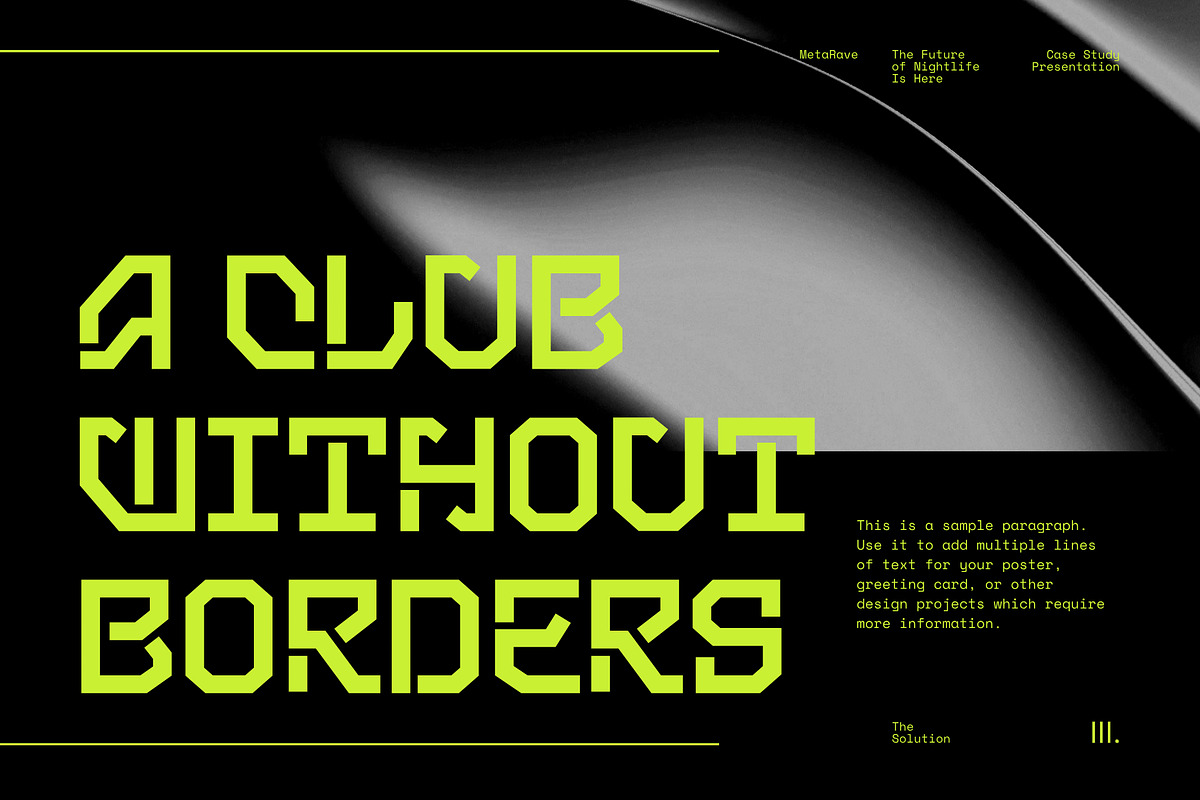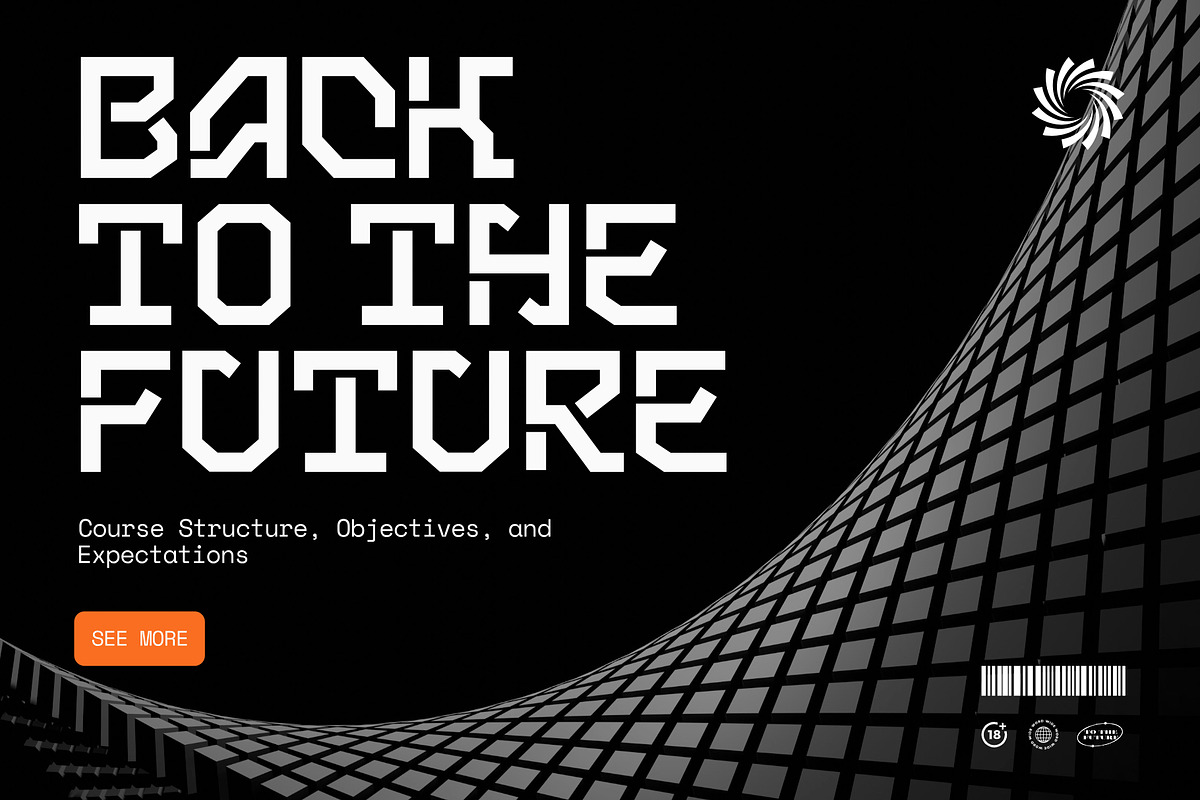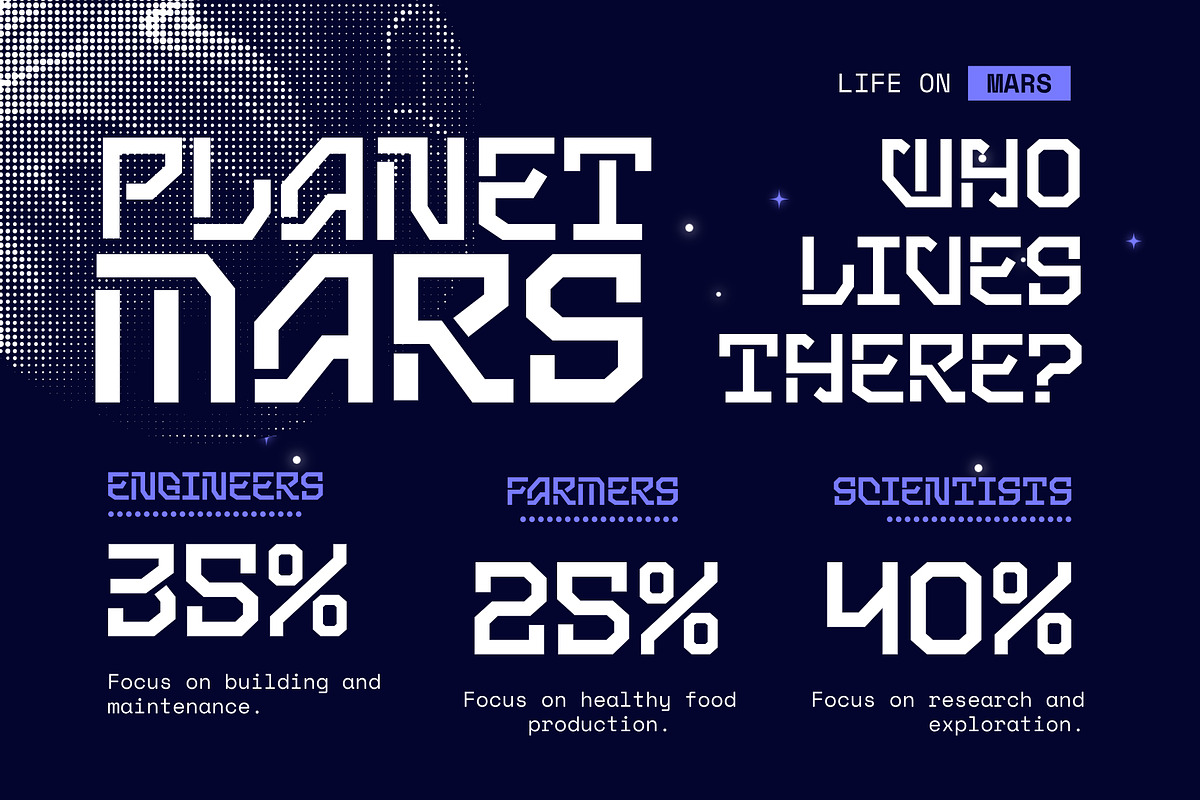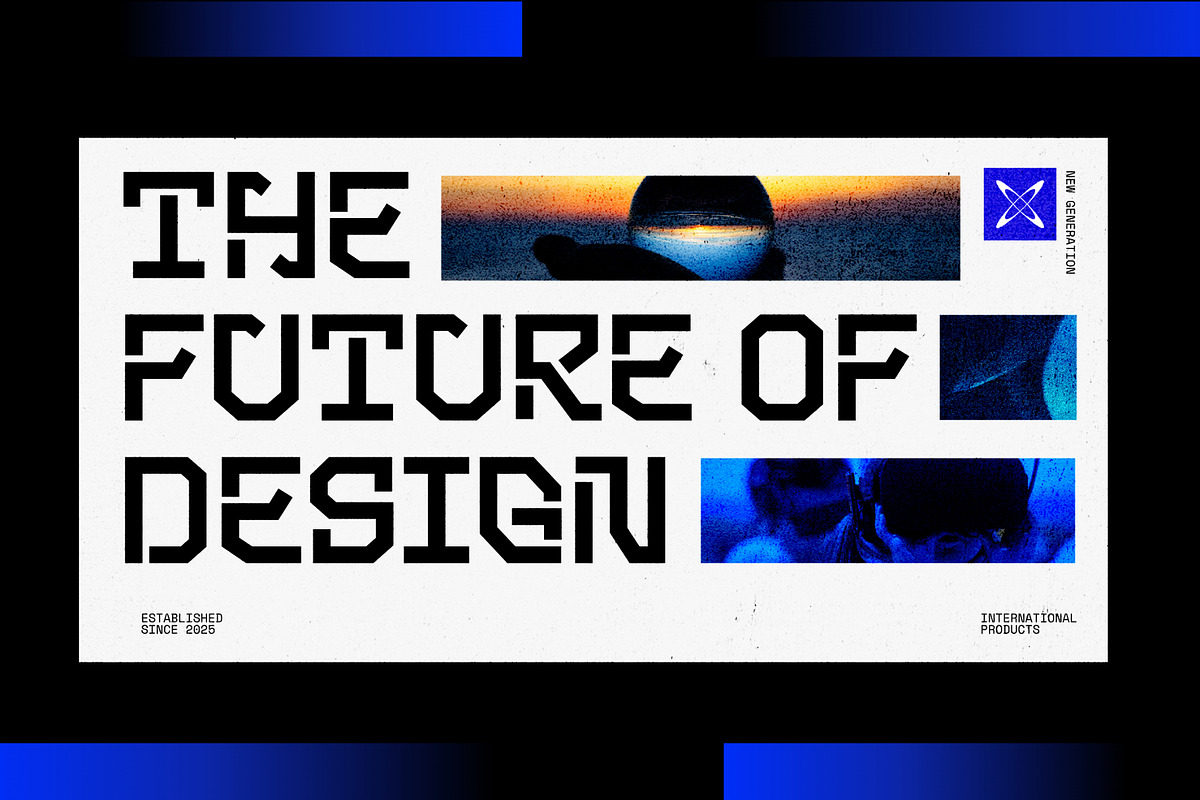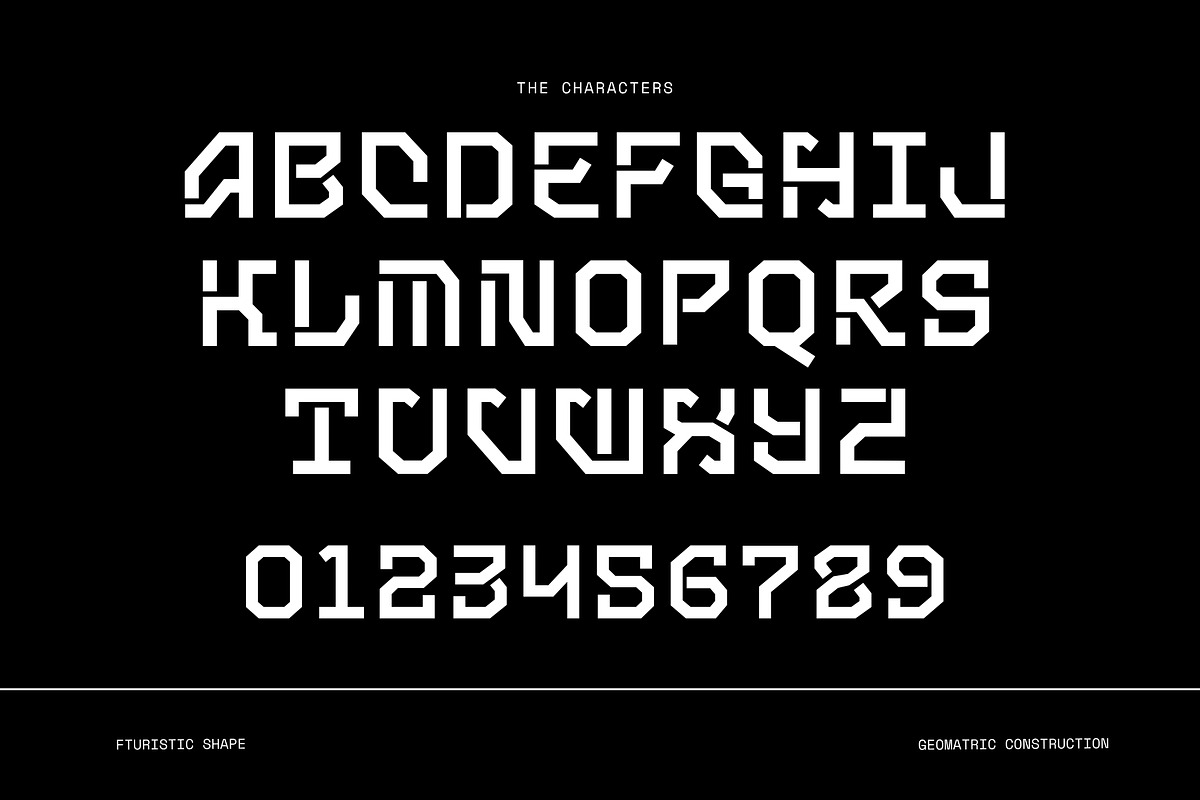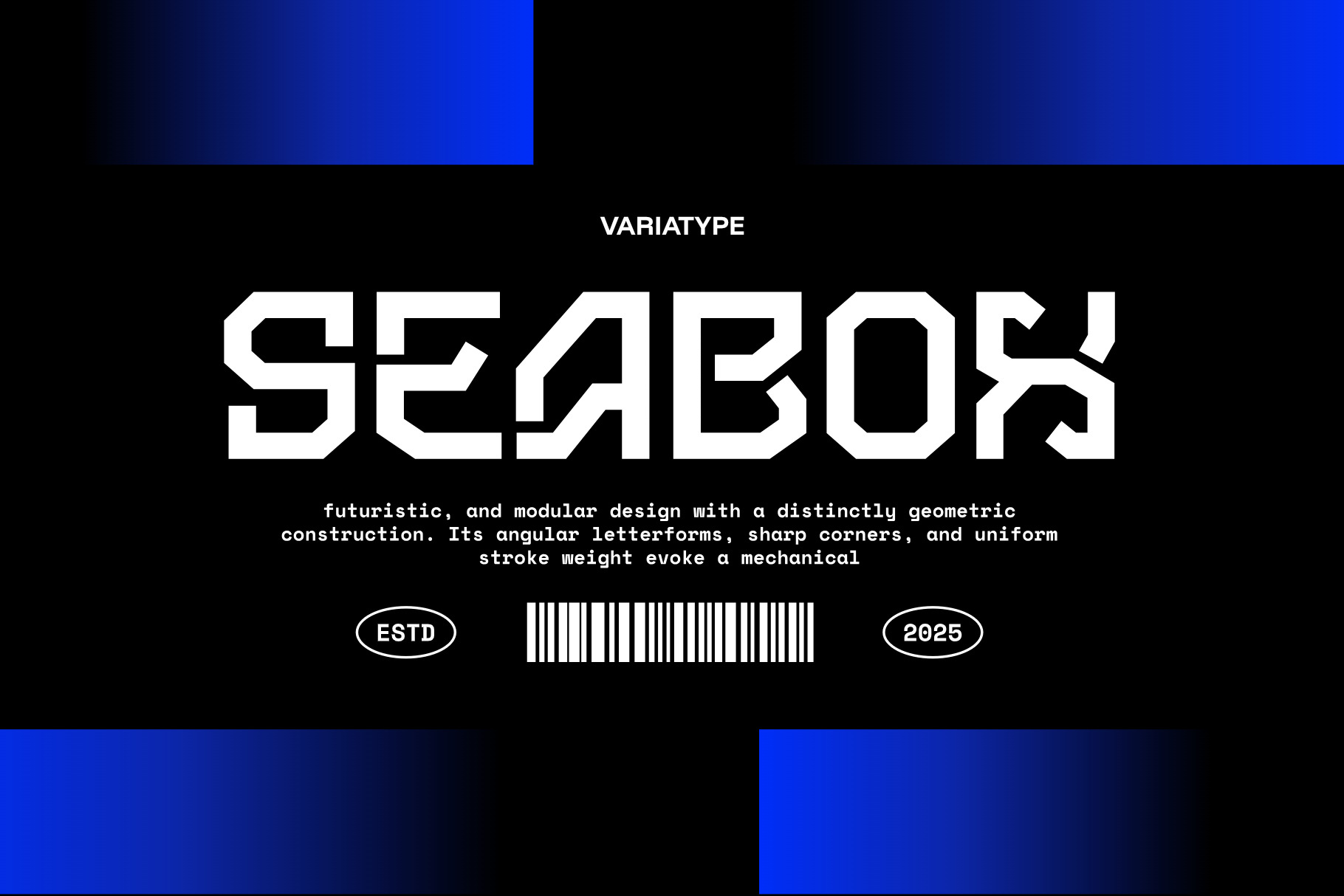
Seabox - Bold Futuristic Font
Seabox is a bold futuristic display typeface crafted for brands that want to project innovation, confidence, and technological excellence. Its geometric construction, sharp angular details, and modular forms create a clean yet commanding visual identity, making it ideal for corporate branding, technology companies, digital agencies, startups, software products, AI platforms, and modern marketing campaigns. Designed to capture attention without sacrificing clarity, Seabox delivers a powerful, professional aesthetic that helps businesses build memorable brand identities across logos, websites, advertising, packaging, presentations, and digital experiences.